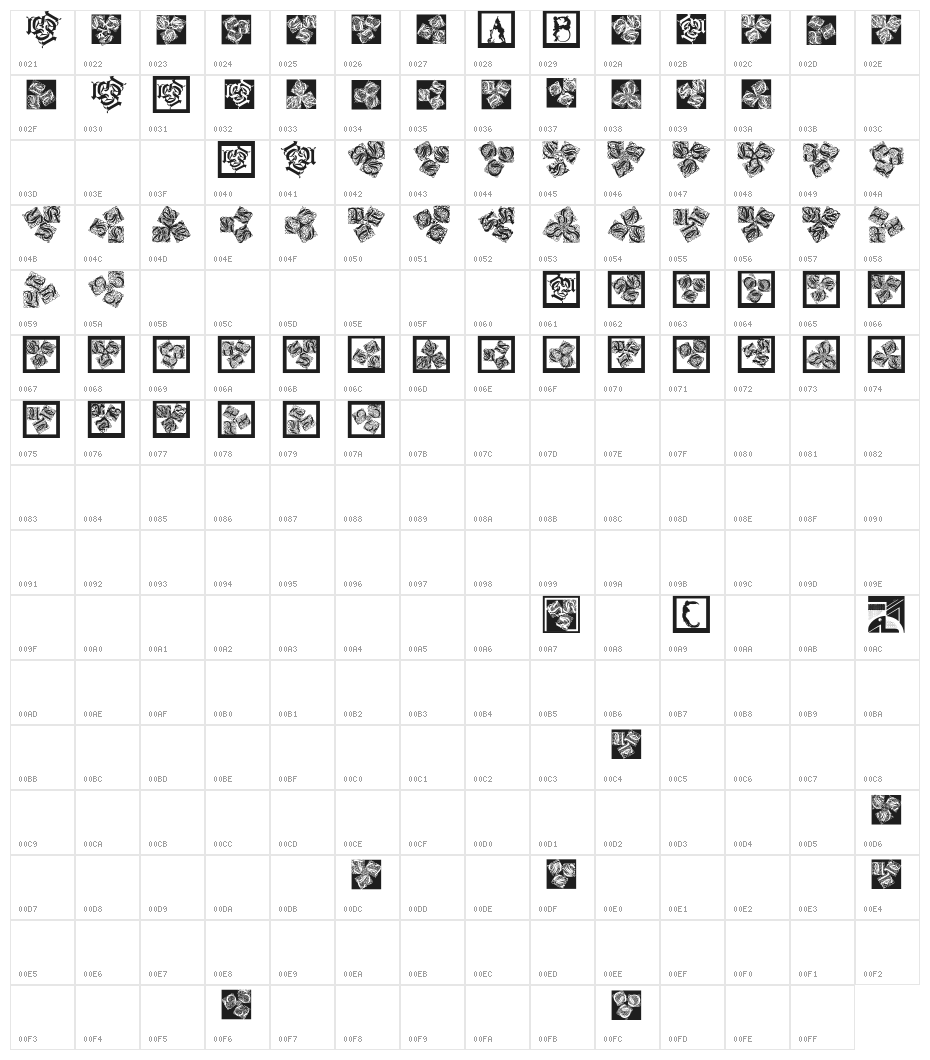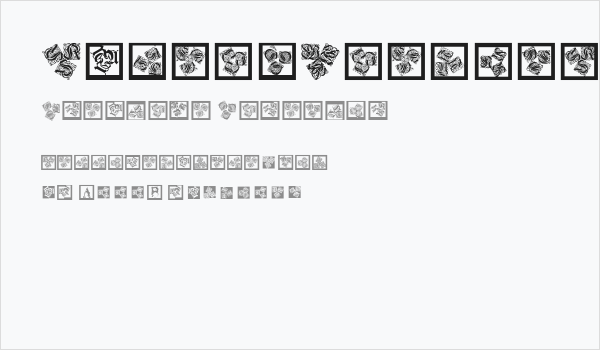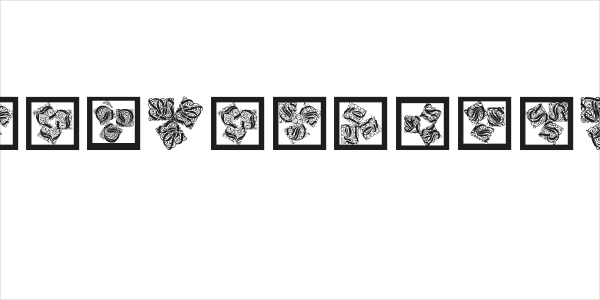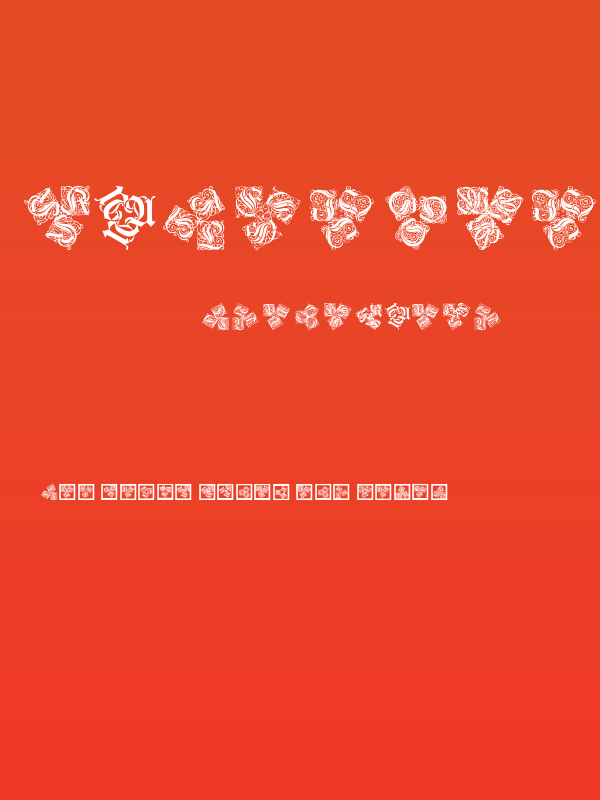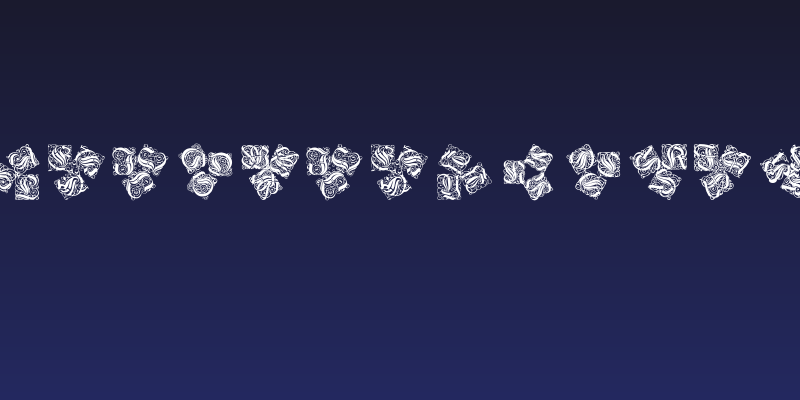
KaleidWieynckFrax Font
KaleidWieynckFrax Description
This font is a highly decorative and intricate design, featuring elaborate floral and geometric patterns within each character. The letters are encased in square borders, adding a structured and uniform appearance. The style is reminiscent of vintage or medieval script, with a strong emphasis on ornamental detail. Each character is unique, with swirling motifs and a high level of artistry, making it suitable for projects that require a touch of elegance and sophistication. The font's complexity and ornate nature suggest it is best used in larger sizes to fully appreciate the intricate details.
| Use Case | Logos, Headlines |
| Proposed Projects | Ideal for wedding invitations, luxury branding, book covers, and decorative posters. |